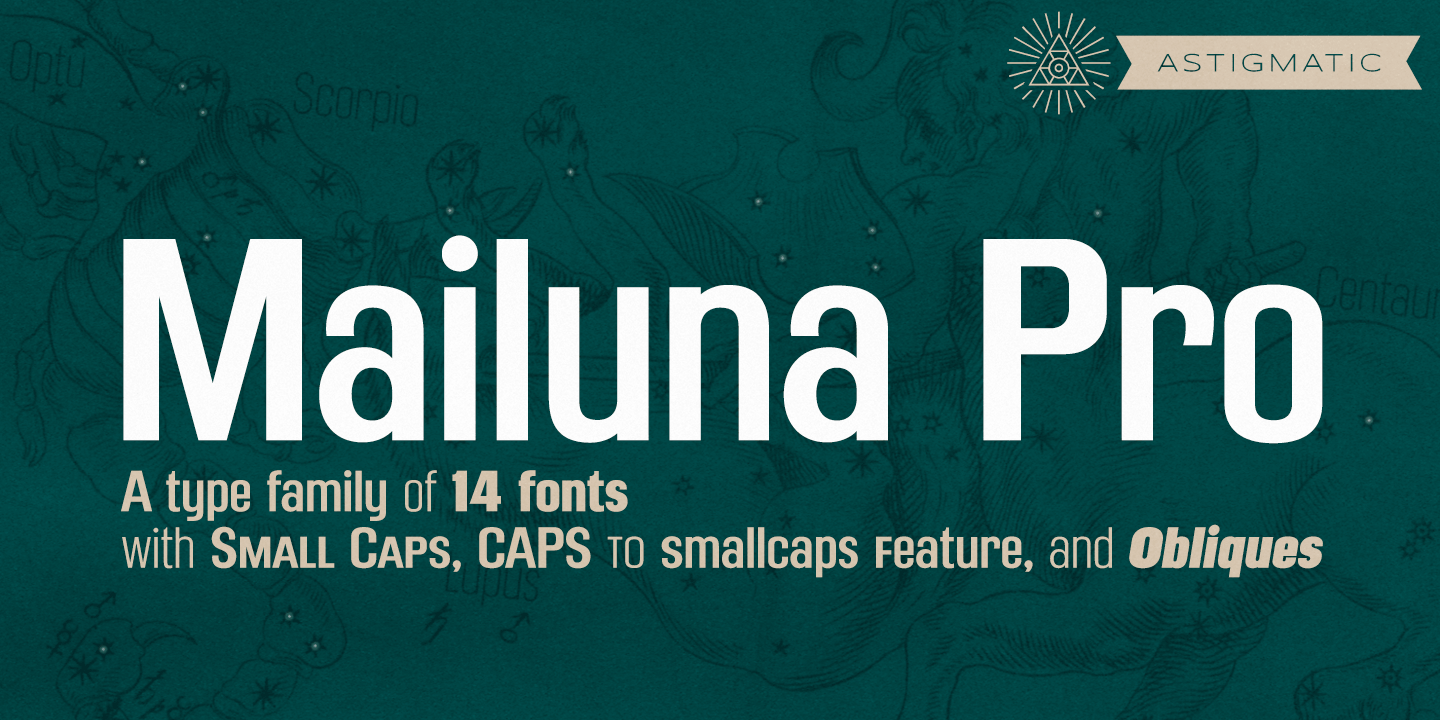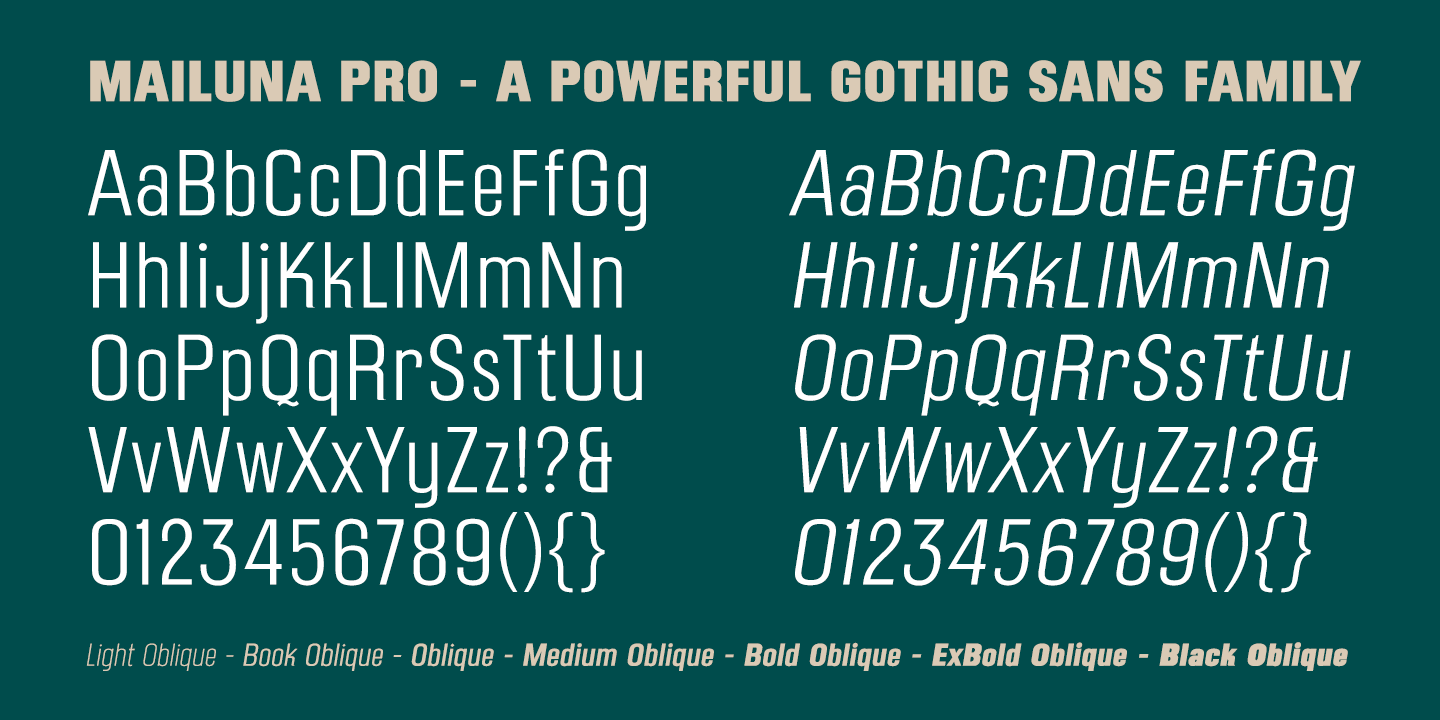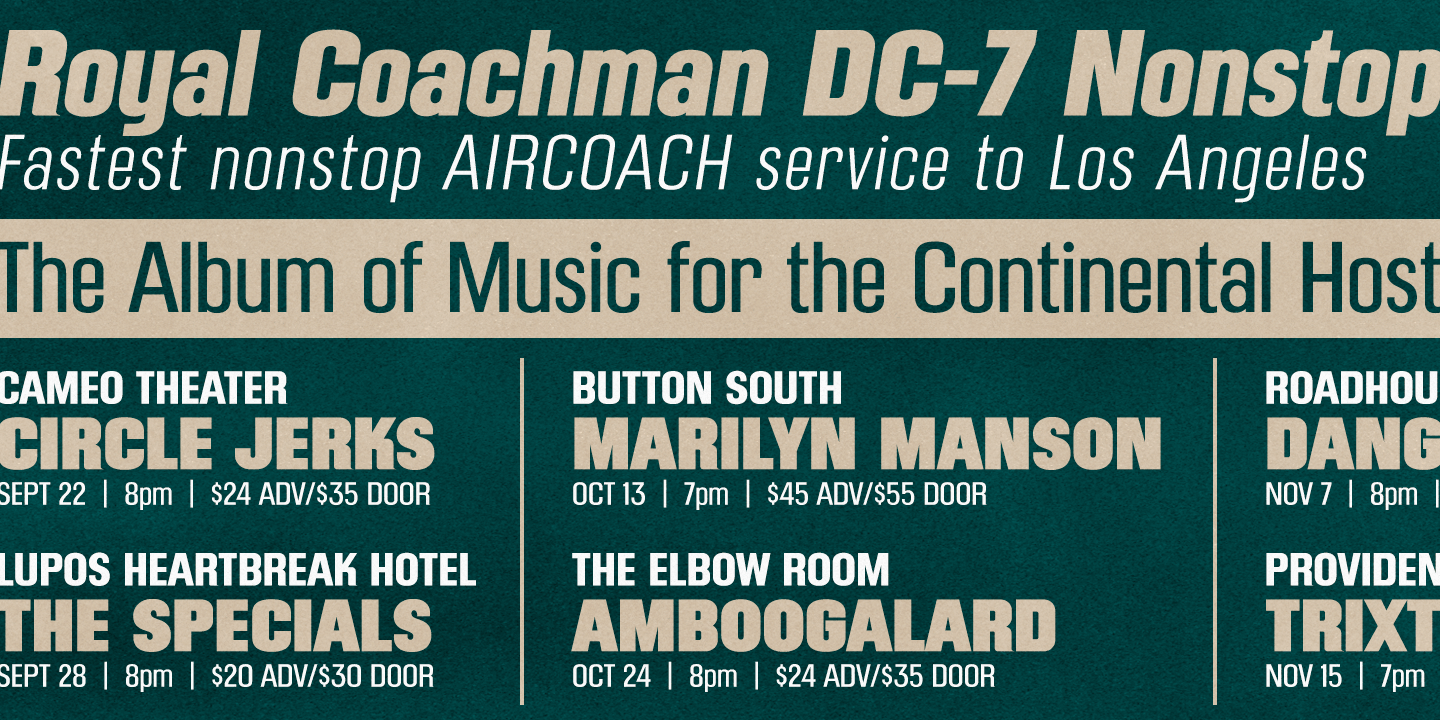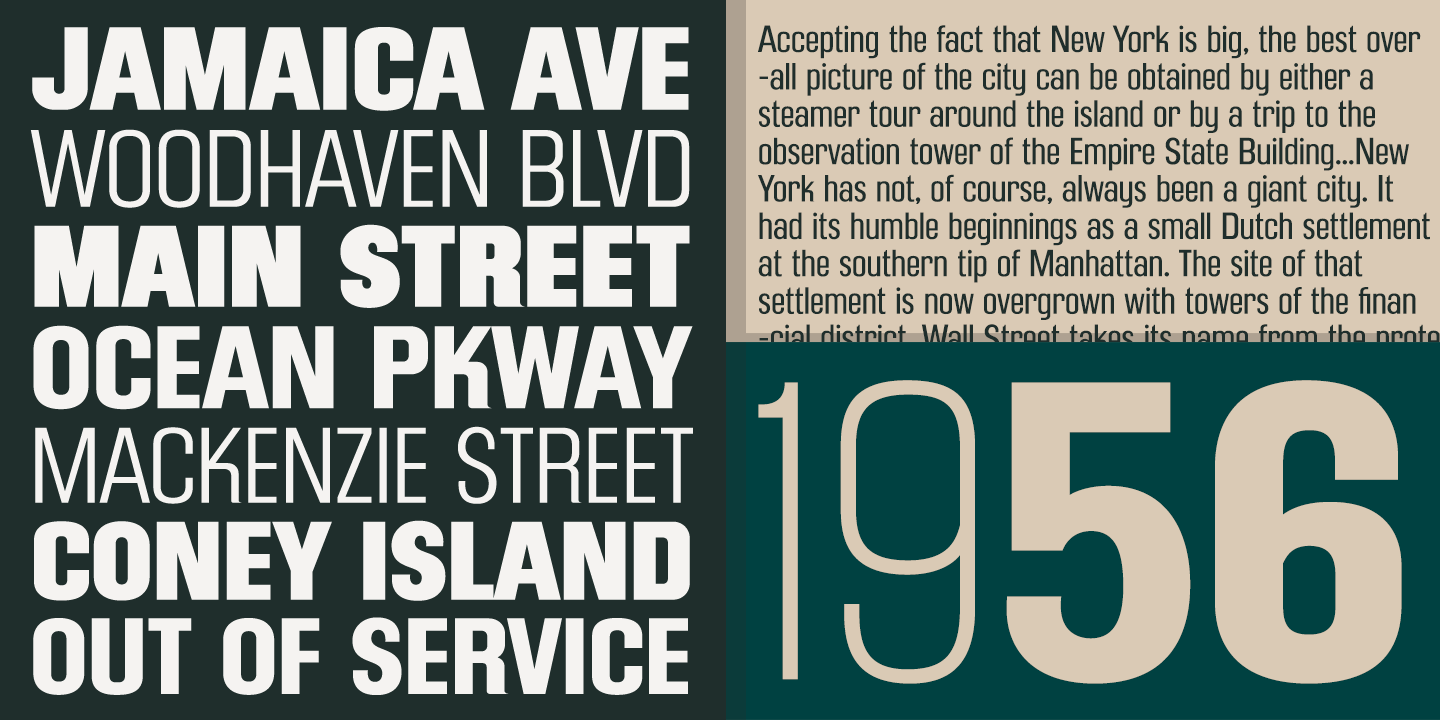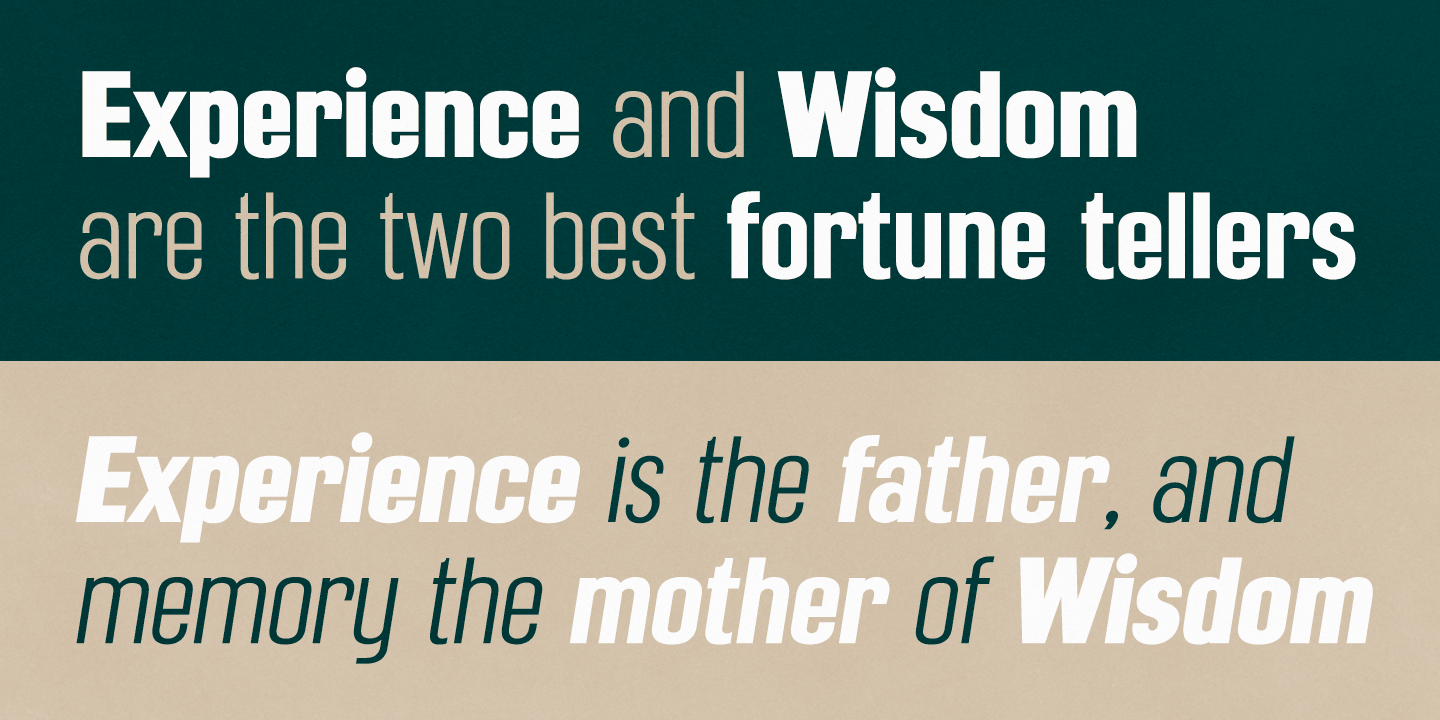
Mailuna Pro
Font Family by Astigmatic One Eye
A family of gothic typefaces of weight and oblique stature, Mailuna Pro AOE's letterforms find themselves on a line between modern and historical gothic styles.
Mailuna Pro finds itself in the visual company of vintage transportation roll signs, wood type gig posters, financial publications, etc. Mailuna contains a rich pro glyphset including small caps, unlimited fractionals, superiors & inferiors, ordinals, tabular & proportional figures, a Caps to small caps feature and an expanded language glyph set.
From modern letterpress back to historical adverts, book covers, headlines, or anything else you want to give a dash of vintage authenticity to, Mailuna Pro AOE is here to fill your needs. Be sure to download and take Mailuna Pro AOE - Book weight for a spin for free.